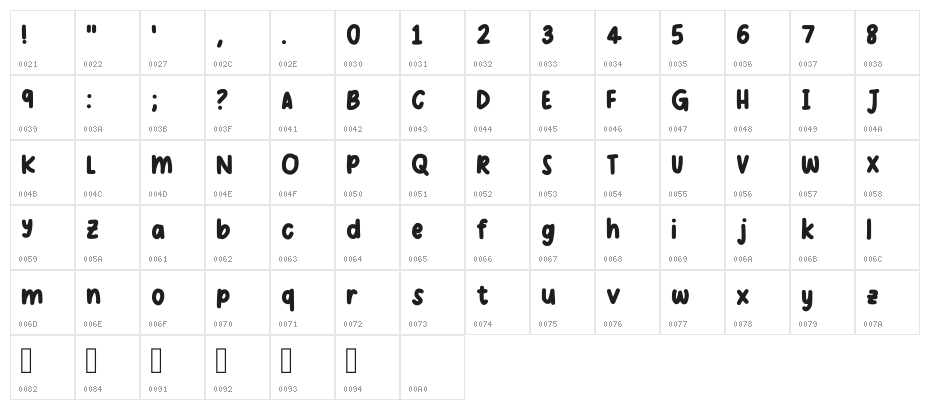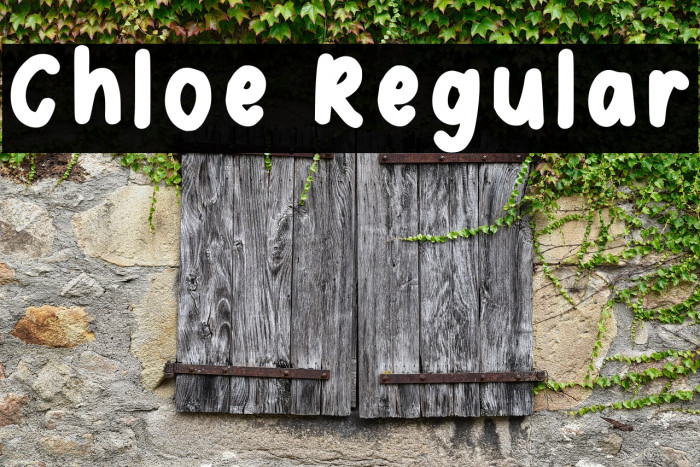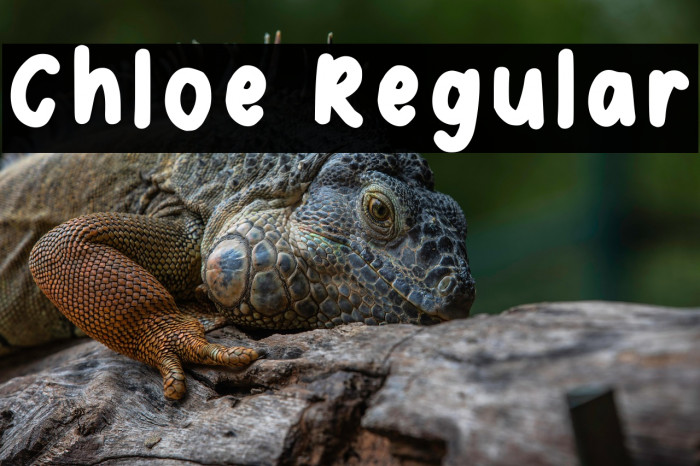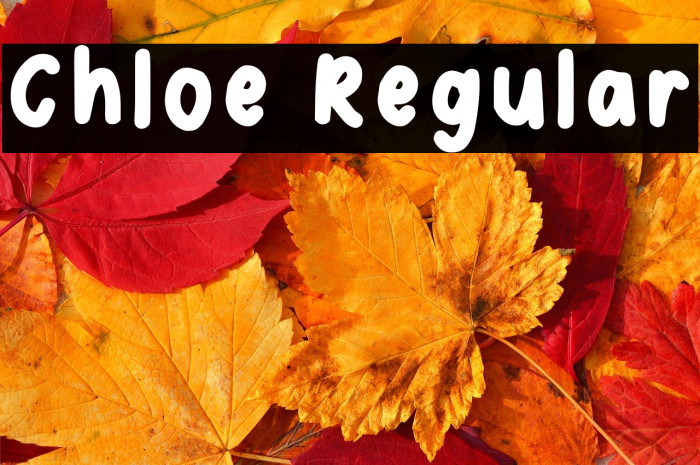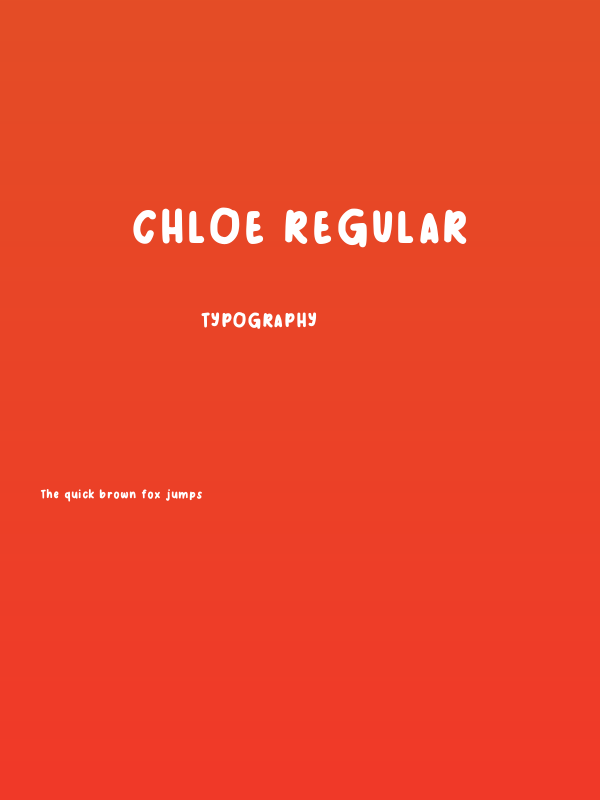
Chloe Regular Font
Chloe Regular Description
A playful and rounded handwritten font with a casual and friendly appearance.
| Proposed Projects | Children's books, casual invitations, playful branding. |